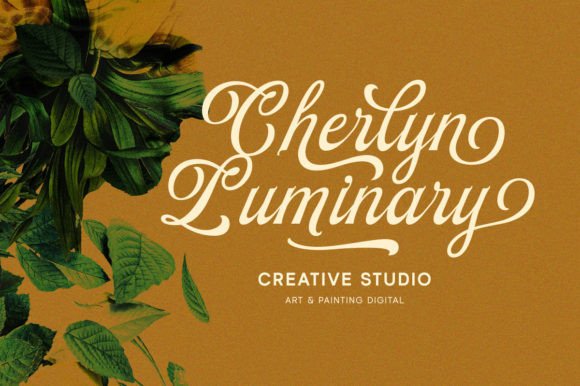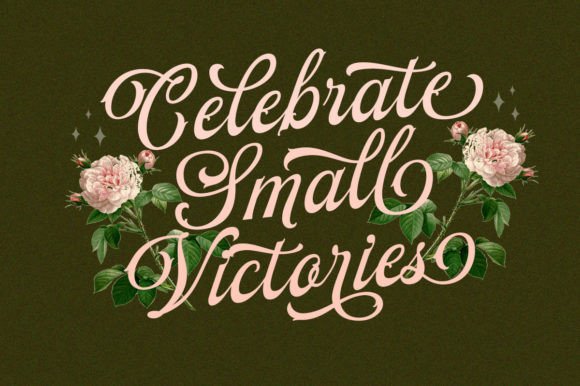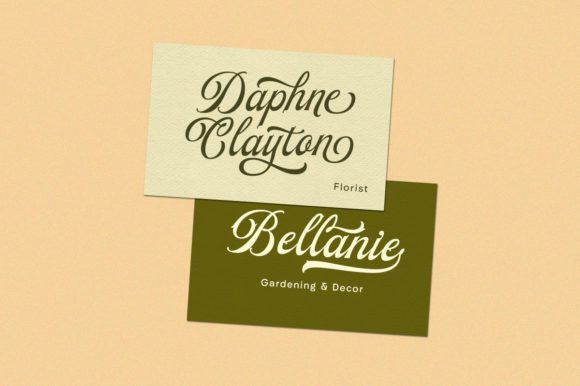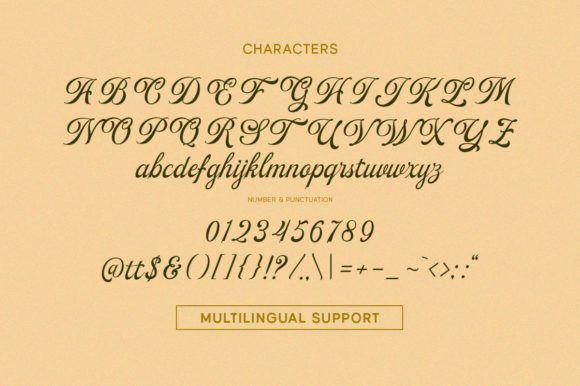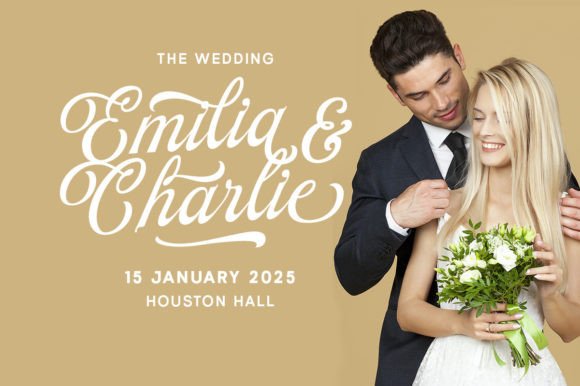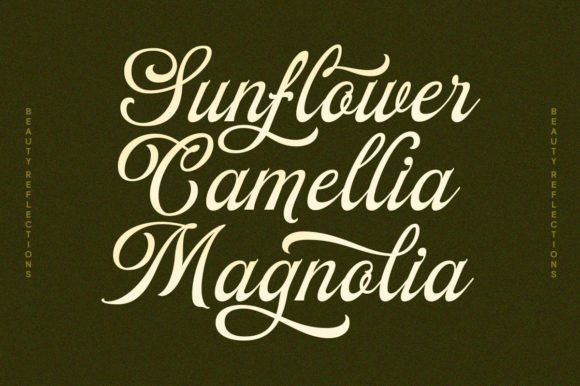
Unlock the Art of Elegant Typography
Have you ever been brainstorming a creative project, flipping through design inspiration boards, and suddenly, a beautiful script font catches your eye? For designers, this moment of serendipity is often the spark that ignites a new idea. And for those who crave a touch of elegance in their typography, there’s a font that stands out from the rest: Beauty Reflections Font.
This exquisite script font is a masterclass in balance and luxury, with carefully crafted letterforms that exude refinement and sophistication. With its intricate details and flourishes, Beauty Reflections Font is the perfect choice for designers who want to add a touch of high-end style to their projects. Whether you’re working on a wedding invitation, a luxury brand logo, or a high-end fashion magazine, this font is sure to leave a lasting impression.
Beauty Reflections Font Key Features
- Font Family: A beautiful and elegant script font, perfect for creating a luxurious and sophisticated look.
- Unique Characteristics: Features intricate brushstrokes, subtle texture, and a sense of movement, giving it a unique and eye-catching appearance.
Designer Review: Beauty Reflections Font
Overall, I’m quite impressed with the Beauty Reflections Font. Here are some of its standout features:
- ✨ Elegant and refined aesthetic, perfect for luxury and high-end brands.
- ✨ Beautifully crafted swashes and flourishes add a touch of sophistication.
- ✨ Wide language support, making it suitable for global branding efforts.
- ⚠️ Limited character set, which might not be ideal for projects requiring a wide range of characters.
- ⚠️ Some characters may not display properly in certain font sizes or on certain devices.
- ⚠️ The font may be too ornate for certain design styles or applications.
Overall, I think the Beauty Reflections Font is a great choice for designers looking to add a touch of luxury and sophistication to their projects. While it may have some limitations, its elegant aesthetic and beautifully crafted swashes make it a worthwhile investment for the right projects. Just be sure to test it thoroughly before committing to a large-scale design project.
The Beauty Reflections Font is ideal for:
- Beauty and fashion branding
- Product packaging and labels
Remember to use the font in conjunction with other design elements to create a cohesive and visually appealing design.
Alternatives to Beauty Reflections Font
Great Vibes Font is a beautiful, elegant script font perfect for creating a sense of luxury and sophistication. It is ideal for use in wedding invitations, fashion designs, and high-end branding. When to use: For projects that require a touch of elegance and refinement.
Comparison to Beauty Reflections Font: While both fonts are elegant and beautiful, Great Vibes Font has a more fluid and cursive feel, making it suitable for longer text and paragraphs. Beauty Reflections Font, on the other hand, has a more modern and minimalist aesthetic.
Carolyna Pro Font is a modern, sophisticated script font that is perfect for creating a sense of glamour and sophistication. It is ideal for use in high-end branding, fashion designs, and luxury packaging. When to use: For projects that require a touch of glamour and sophistication.
Comparison to Beauty Reflections Font: Carolyna Pro Font has a more modern and sleek feel, making it suitable for use in digital designs and packaging. Beauty Reflections Font, on the other hand, has a more classic and elegant aesthetic.